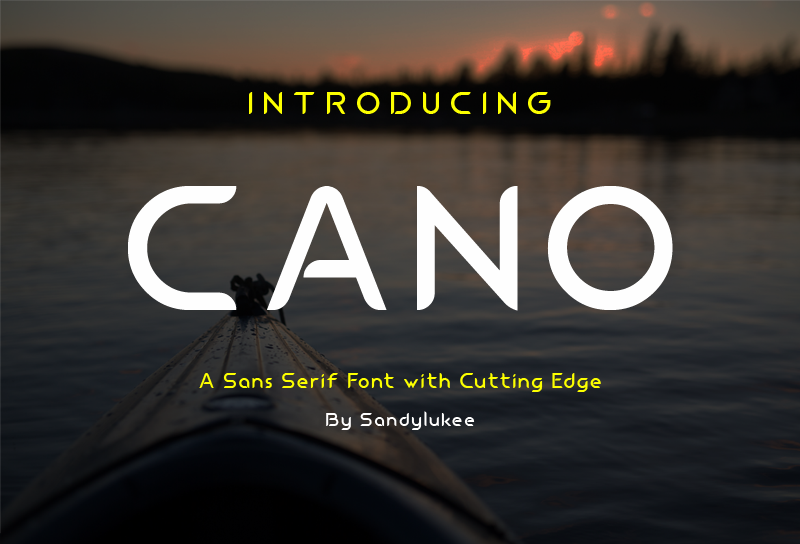
Font name: | Cano |
Author: | Sandylukee |
Note by Sandylukee | |
Introducing CANO the sans serif font with cutting edge. It will be perfect for many of your design such as banner, brochure, logo, magazine, etc. this is my first font so your dont hesitate to give your comment and opinion, it will be good for me to make better font in the future. if you want to donate, you can click this link https://paypal.me/sandylukee?locale.x=id_ID I hope you get more than what you give to me. thank you |